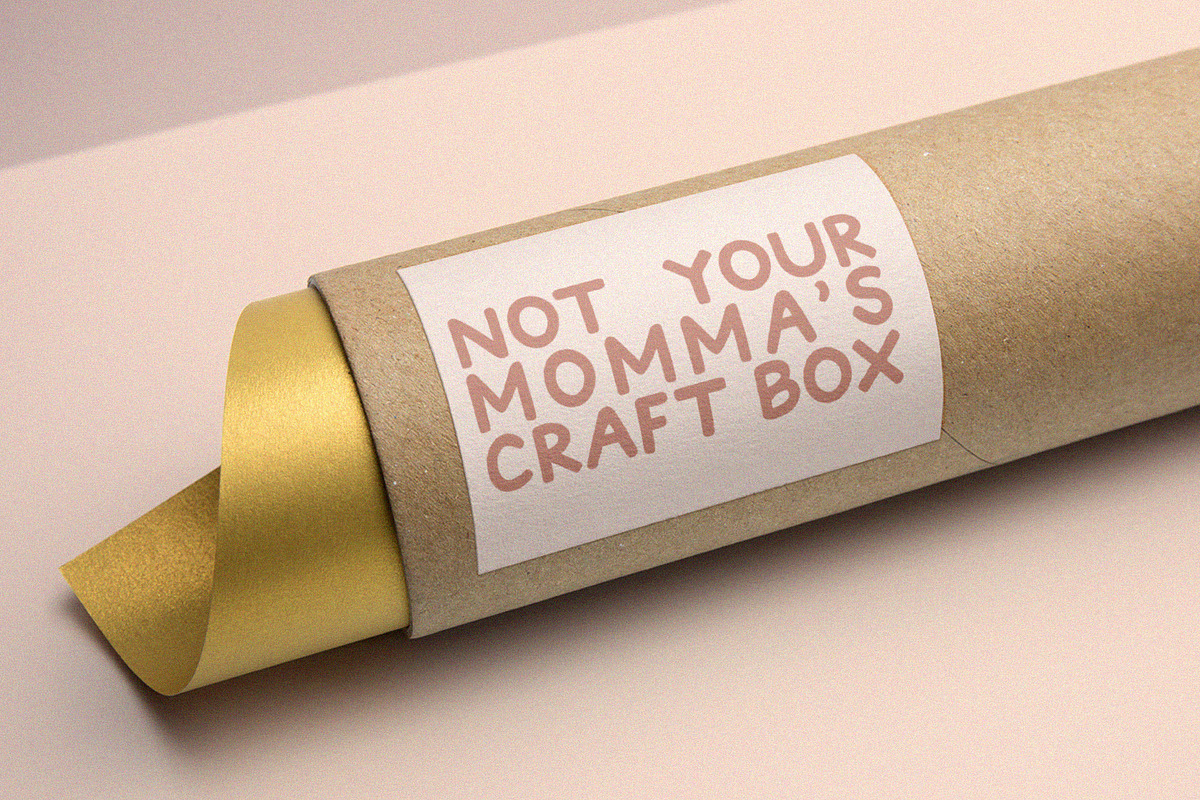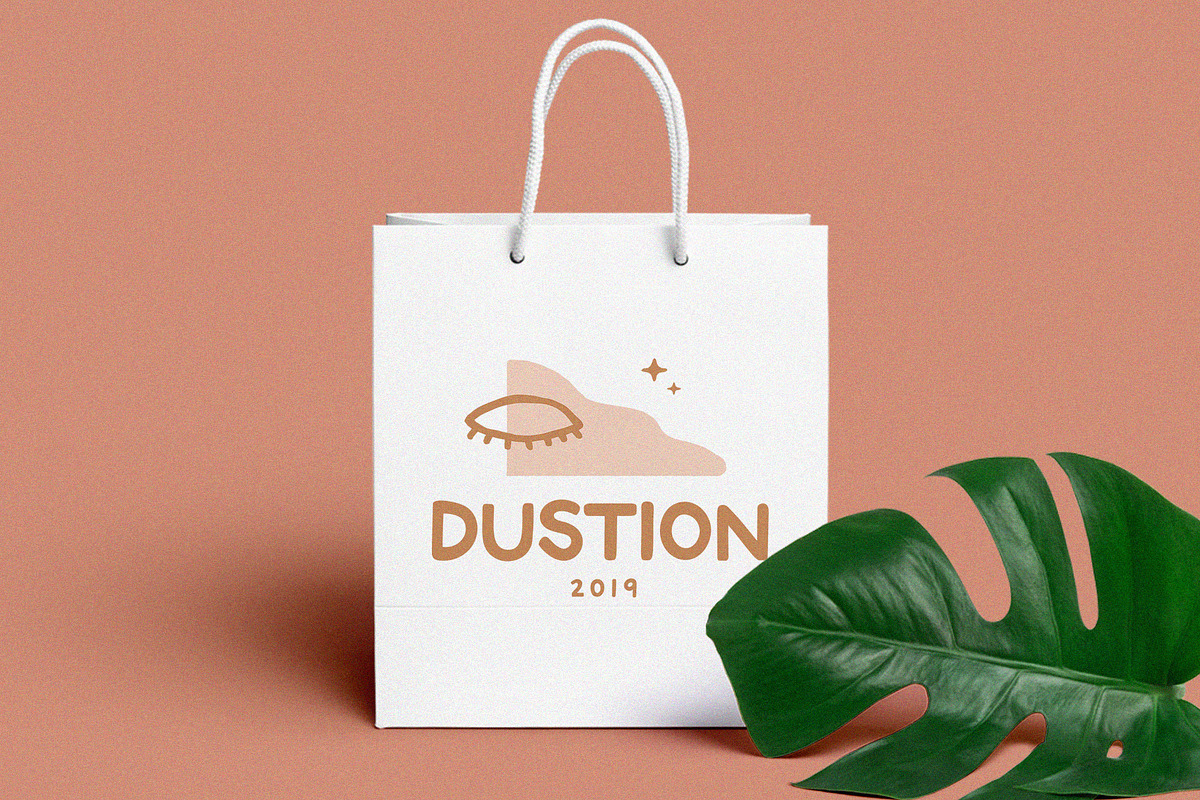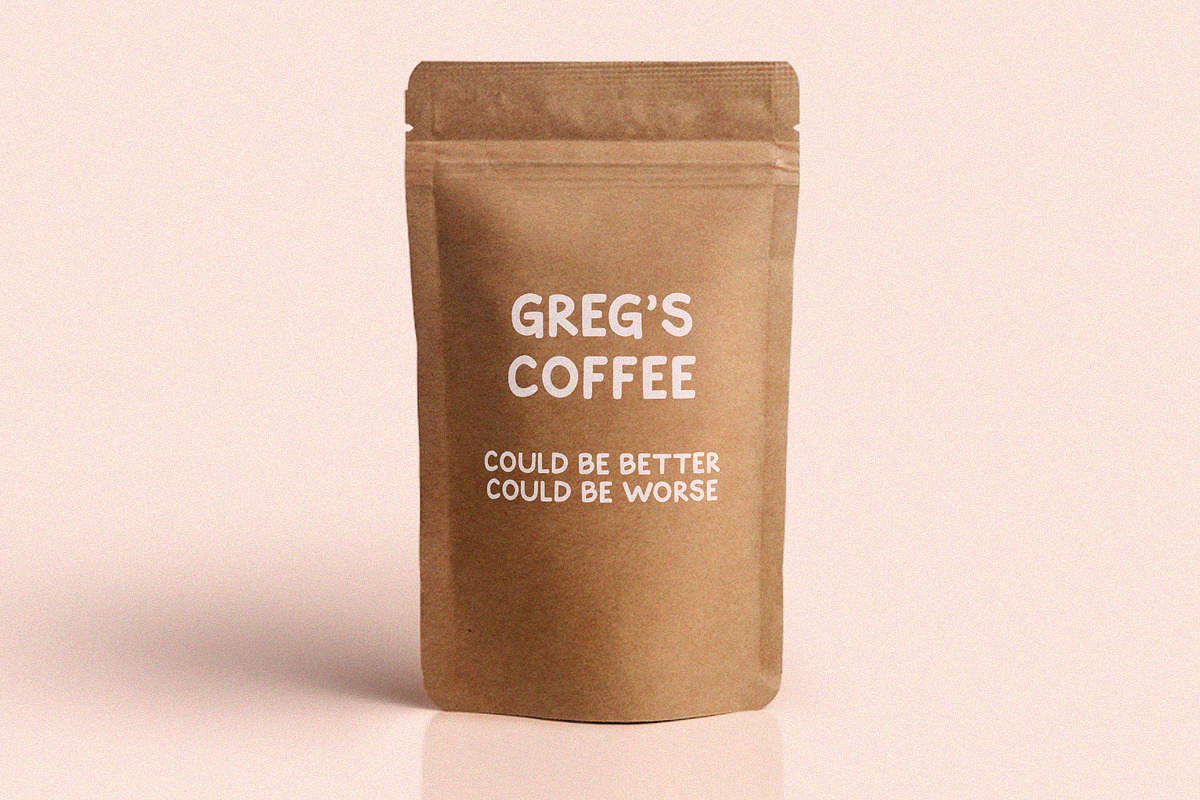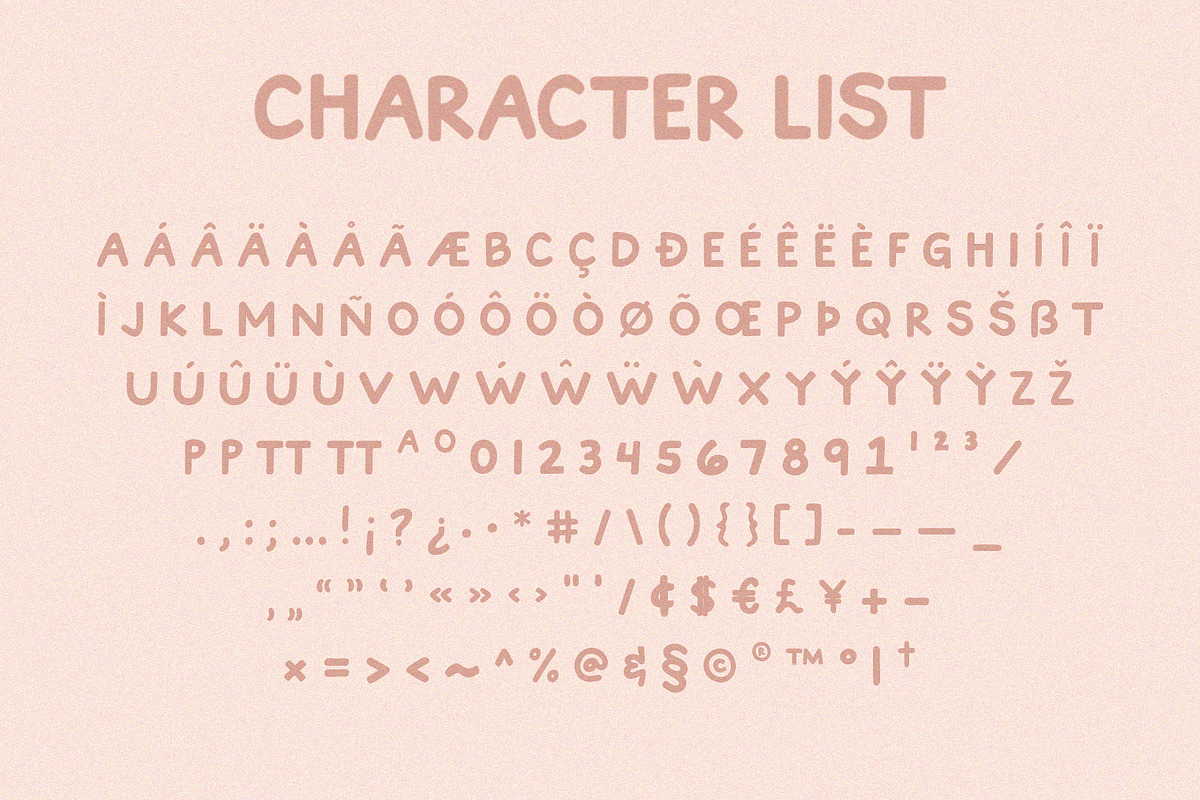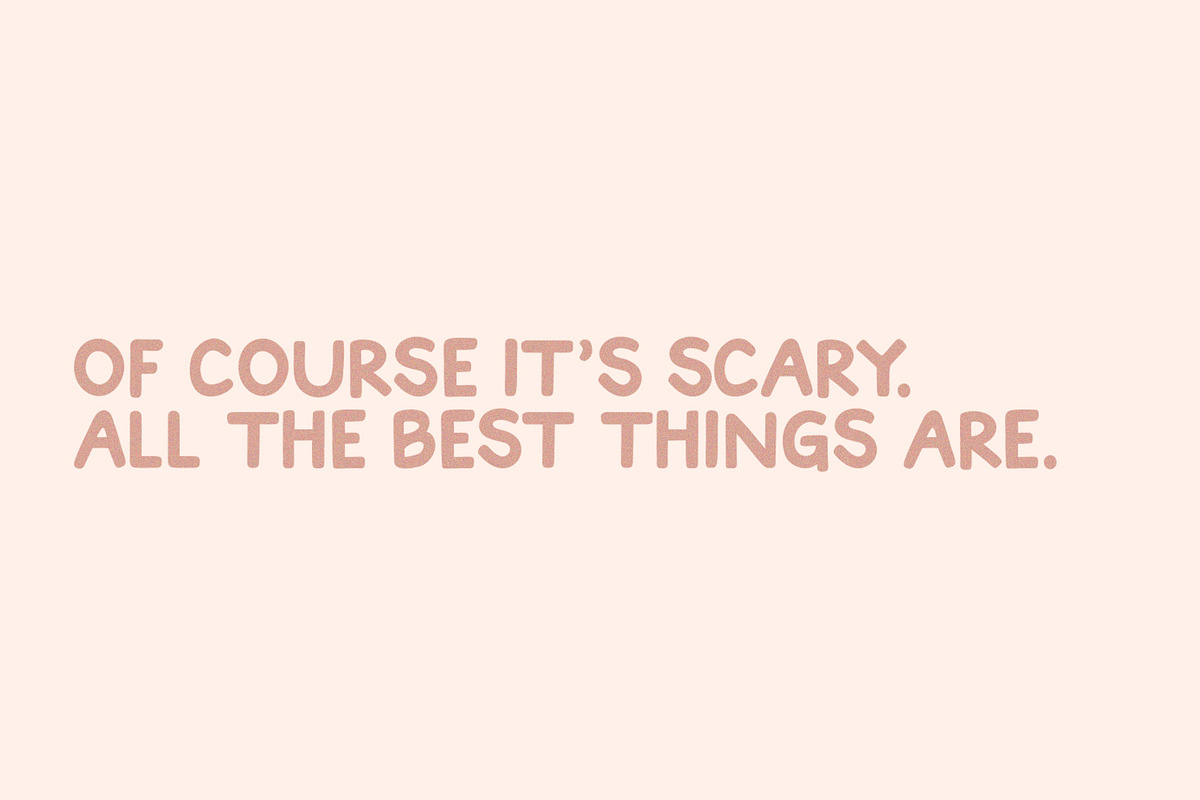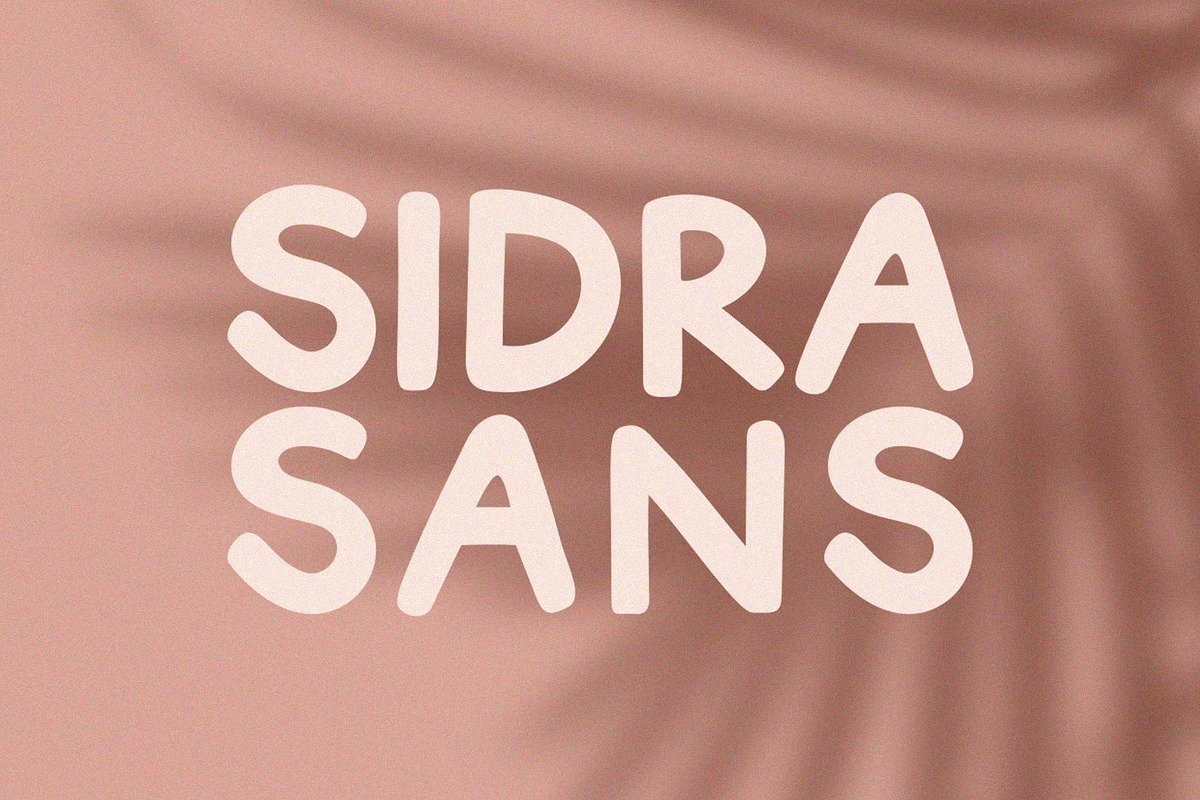
Sidra Sans | Handwritten Sans Serif
Meet Sidra Sans! An uppercase sans serif font with an authentic, handwritten feel (bc it was!). It's a great font for teachers and parents as it has a carefree vibe perfect for kid's projects.